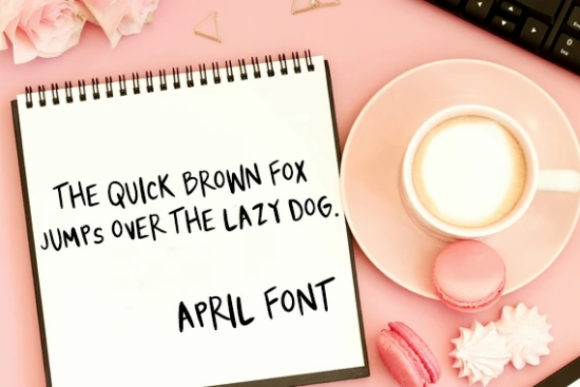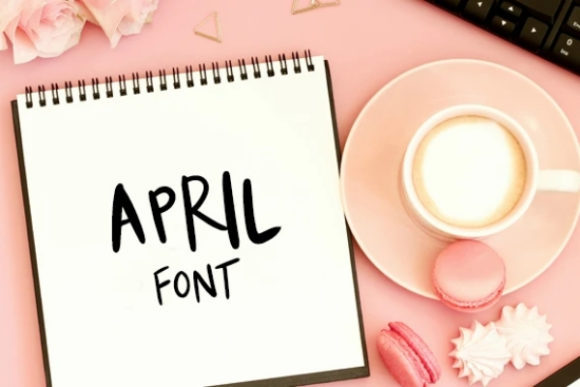
Introducing April Font: The Cute and Casual Display Font with a Playful Twist
Are you tired of using the same old fonts for your design projects? Look no further than April Font, a fresh and playful display font that’s sure to brighten up your creative endeavors. With its unique blend of cuteness and casual charm, April Font is perfect for designers and crafters looking to add a touch of whimsy to their work.
What Makes April Font So Special?
April Font is more than just a font – it’s an experience. This delightful display font comes with beautiful doodles that will add a touch of personality to any project. Its playful design makes it perfect for a wide range of applications, from social media graphics and posters to invitations and crafts.
Key Features of April Font
- Cute and Casual Design: April Font boasts a charming, laid-back vibe that’s perfect for creating eye-catching designs that appeal to a wide audience.
- Beautiful Doodles: The font comes with a set of delightful doodles that will add an extra layer of fun and personality to your designs.
- Unique Playfulness: April Font’s distinctive style makes it stand out from the crowd, ensuring your designs will be noticed and remembered.
- High Versatility: Whether you’re working on a social media graphic, poster, invitation, or craft project, April Font is the perfect choice.
How to Use April Font in Your Projects
April Font is incredibly easy to use and can be applied to a wide range of design projects. Here are a few ideas to get you started:
- Social Media Graphics: Use April Font to create eye-catching social media graphics that showcase your brand’s personality.
- Posters and Flyers: Add a playful touch to your posters and flyers with April Font’s unique design.
- Invitations and Cards: Make your invitations and cards stand out with April Font’s beautiful doodles and cute design.
- Crafts and DIY Projects: April Font is perfect for crafters and DIY enthusiasts looking to add a personal touch to their projects.
Why Designers and Crafters Love April Font
April Font has quickly become a favorite among designers and crafters, and for good reason. Its unique blend of playfulness and charm makes it the perfect choice for anyone looking to add a touch of personality to their designs.
Designers love April Font for its:
- Flexibility: April Font can be used in a wide range of design projects, from digital graphics to print materials.
- Uniqueness: April Font’s distinctive style ensures that your designs will stand out from the crowd.
- Ease of Use: April Font is incredibly easy to use, making it perfect for designers of all skill levels.
Crafters and DIY enthusiasts love April Font for its:
- Cuteness: April Font’s adorable design makes it perfect for crafters and DIY enthusiasts looking to add a personal touch to their projects.
- Playfulness: April Font’s playful design makes it perfect for adding a touch of whimsy to crafts and DIY projects.
- Versatility: April Font can be used in a wide range of craft and DIY projects, from cards and invitations to scrapbooking and journaling.
Whether you’re a seasoned designer or a crafty DIY enthusiast, April Font is sure to become a favorite in your collection. Its versatility, ease of use, and adorable design make it the perfect choice for a wide range of projects. So go ahead, get creative, and see what amazing designs you can create with April Font!